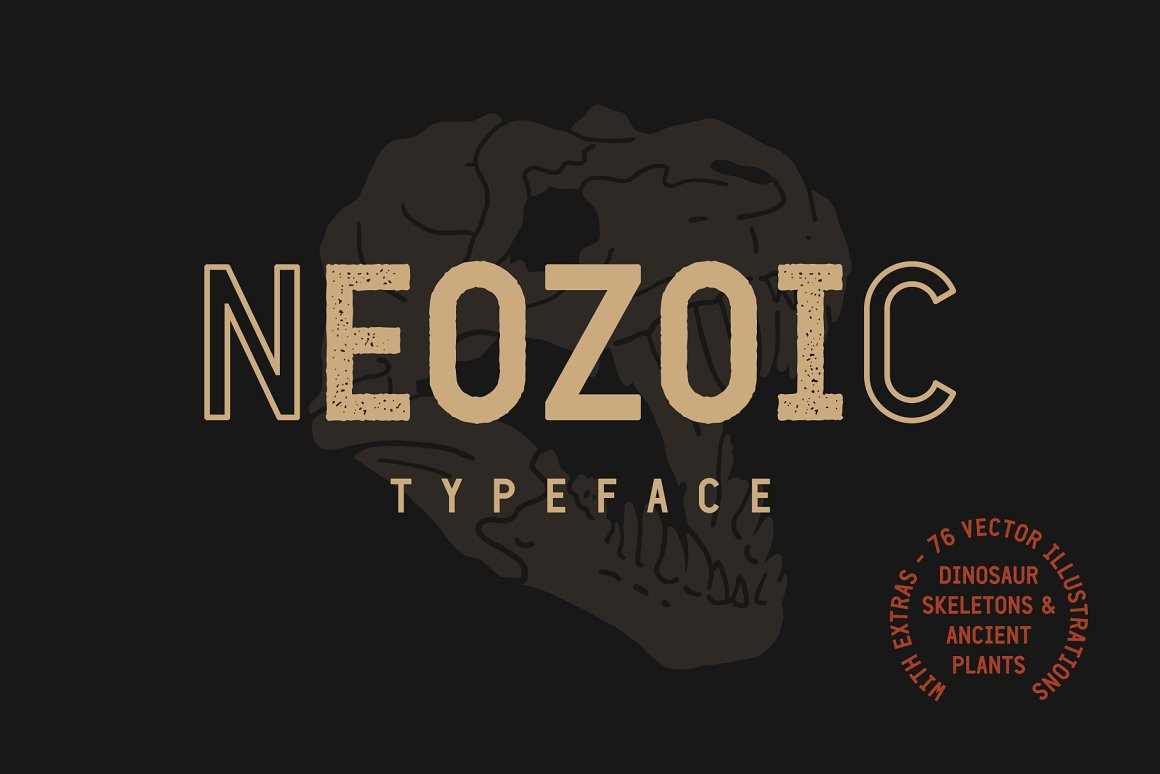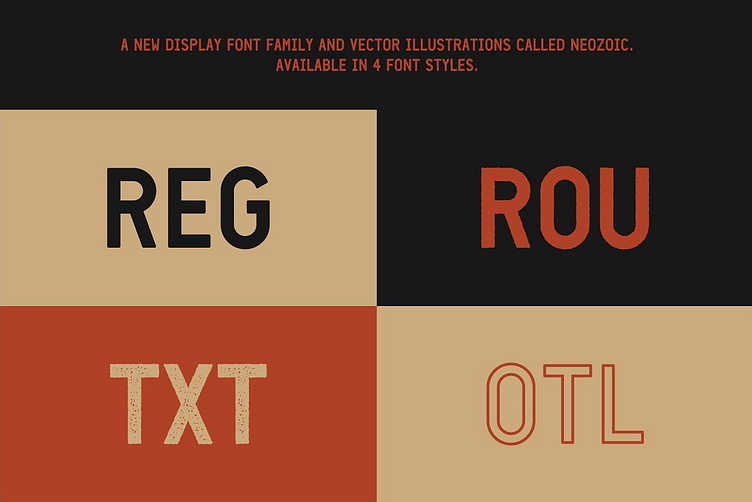
A new font family and vector illustrations called Neozoic. Available in 4 font styles (Regular, Rough, Textured, Outline). Includes 36 vector illustrations of dinosaur skeletons + 40 vector illustrations of ancient plants.
Vector illustrations are inspired from Mesozoic era and Dinosaur fossils. Perfectly paired when used together create your best design with this font for any purposes such as t-shirts, typographic designs, sign, sticker, logos, poster design, magazine, mark, and others.
Western characters included. Support for 17 languages : Afrikaans, Albanian, Catalan, Danish, Dutch, English, Estonian, Finnish, French, German, Icelandic, Italian, Norwegian, Portugese, Spanisch,
Swedish, Zulu.
THIS ENTIRE FONT IS CAPITALIZED